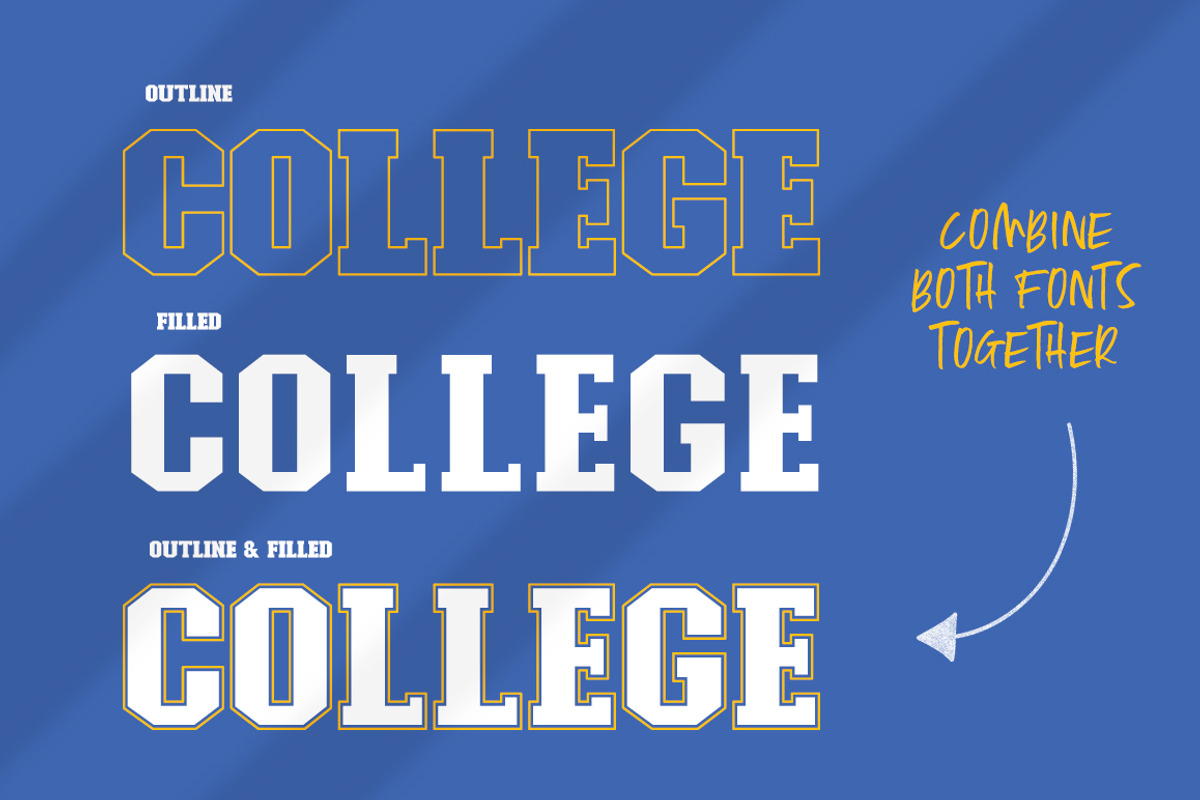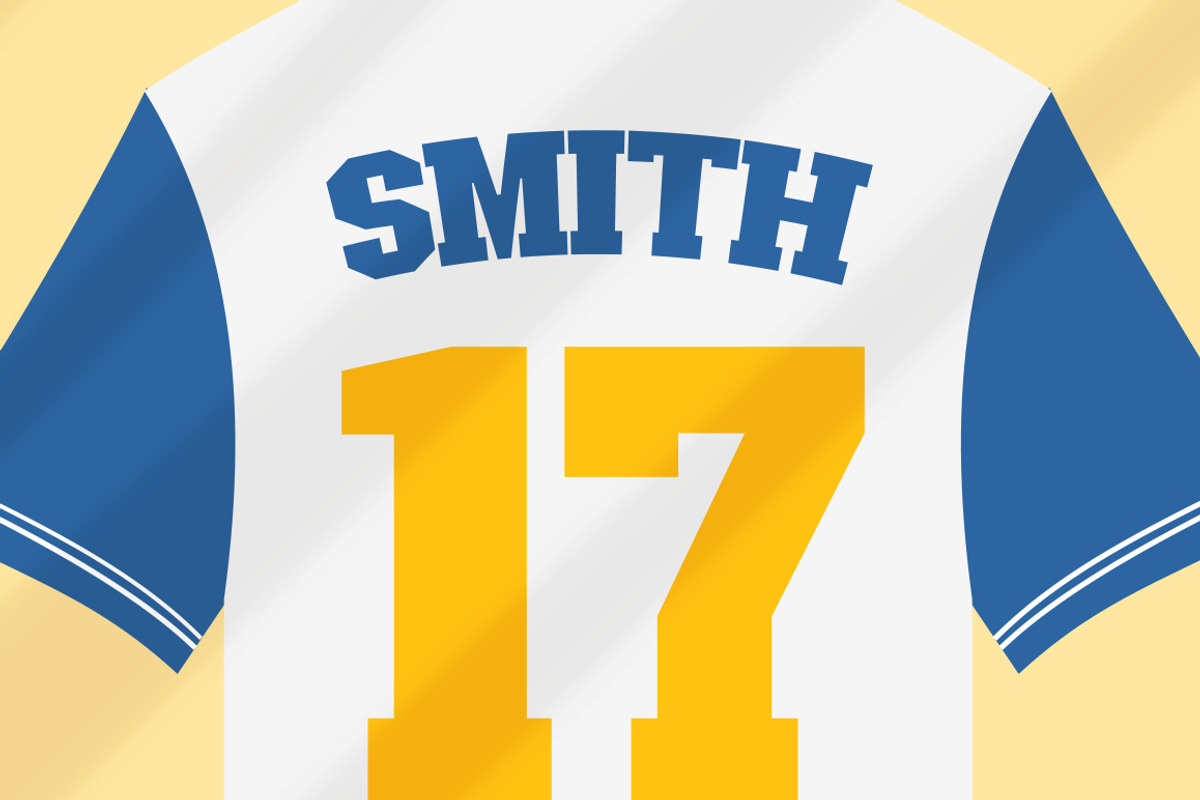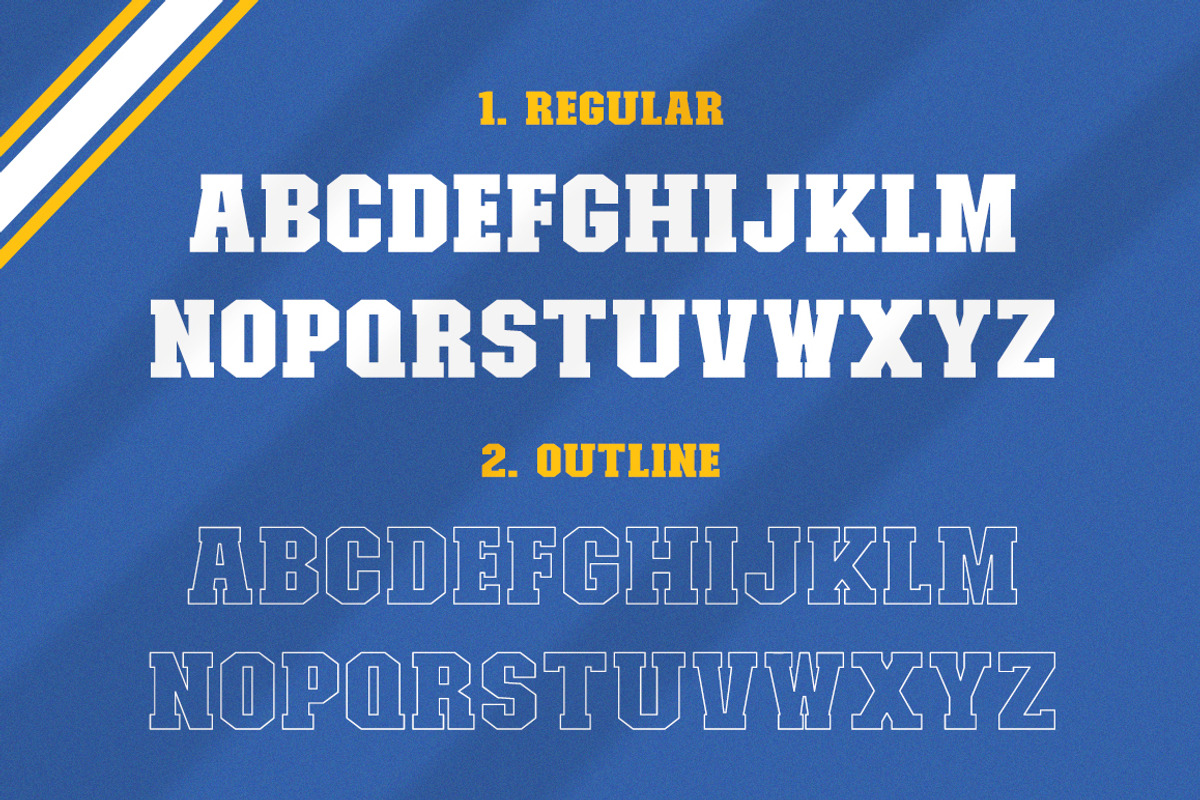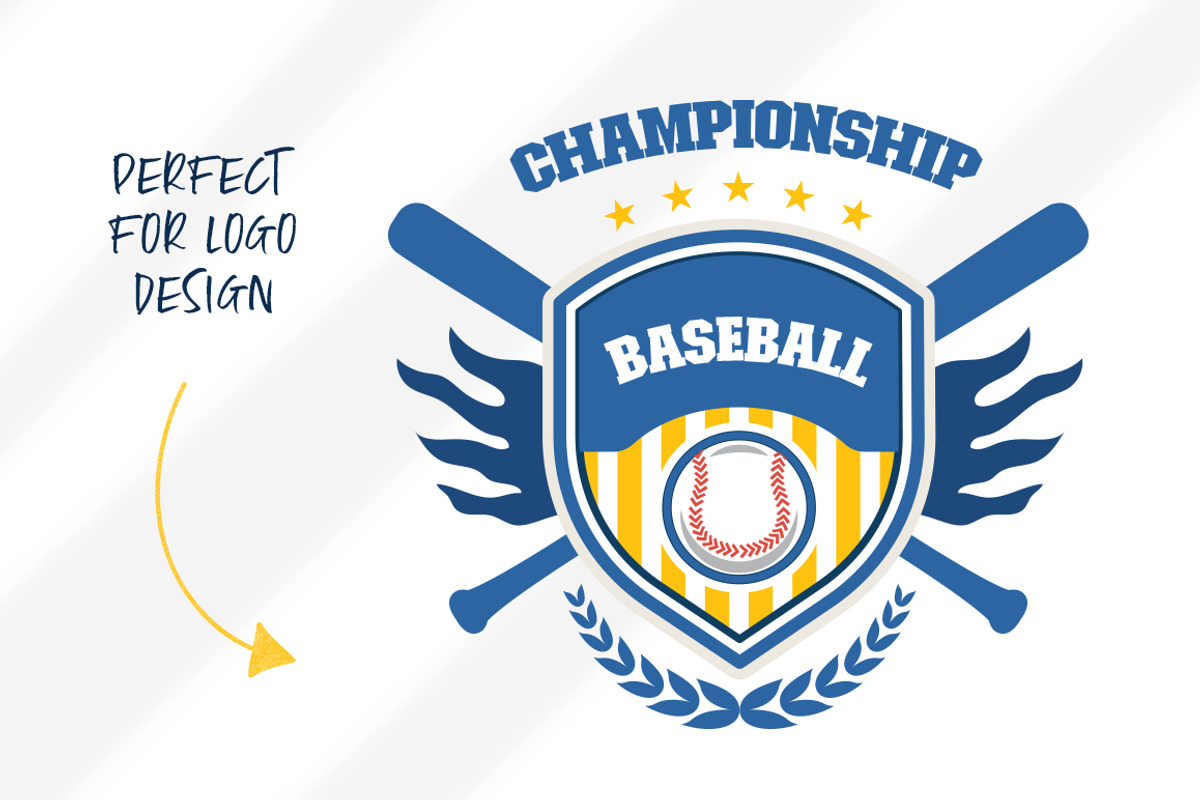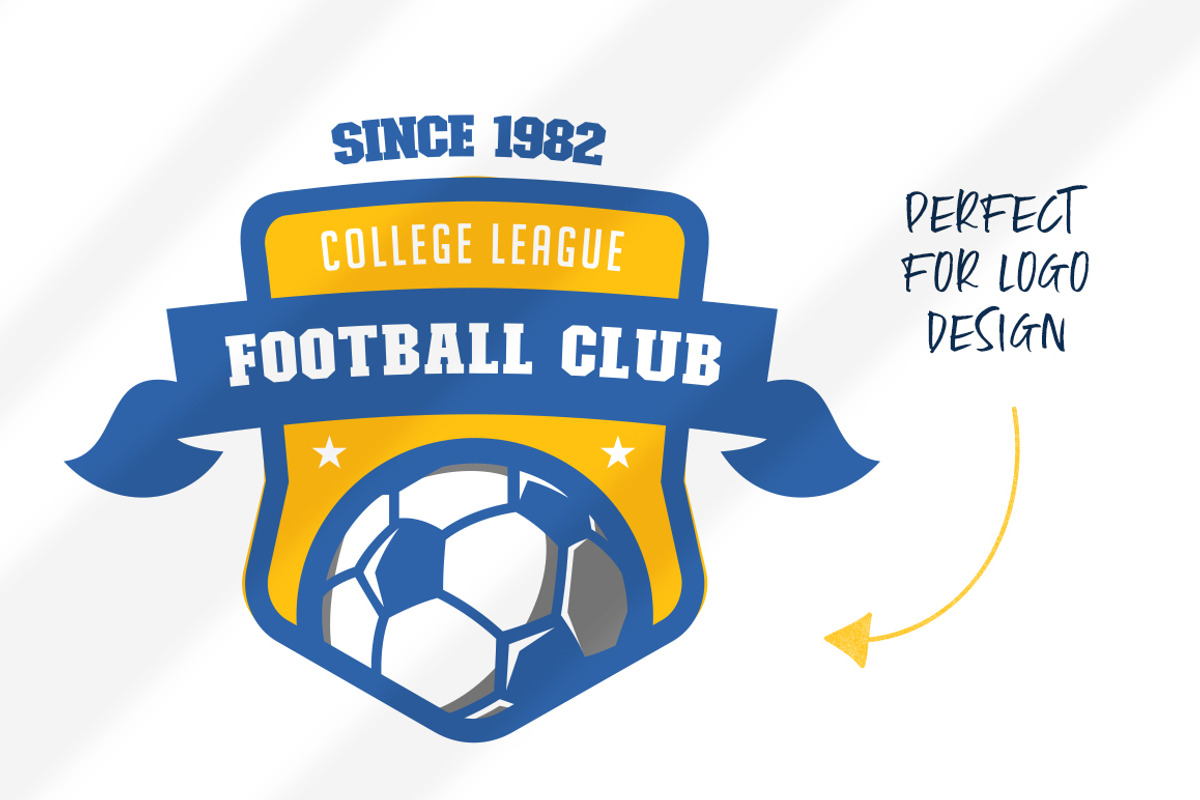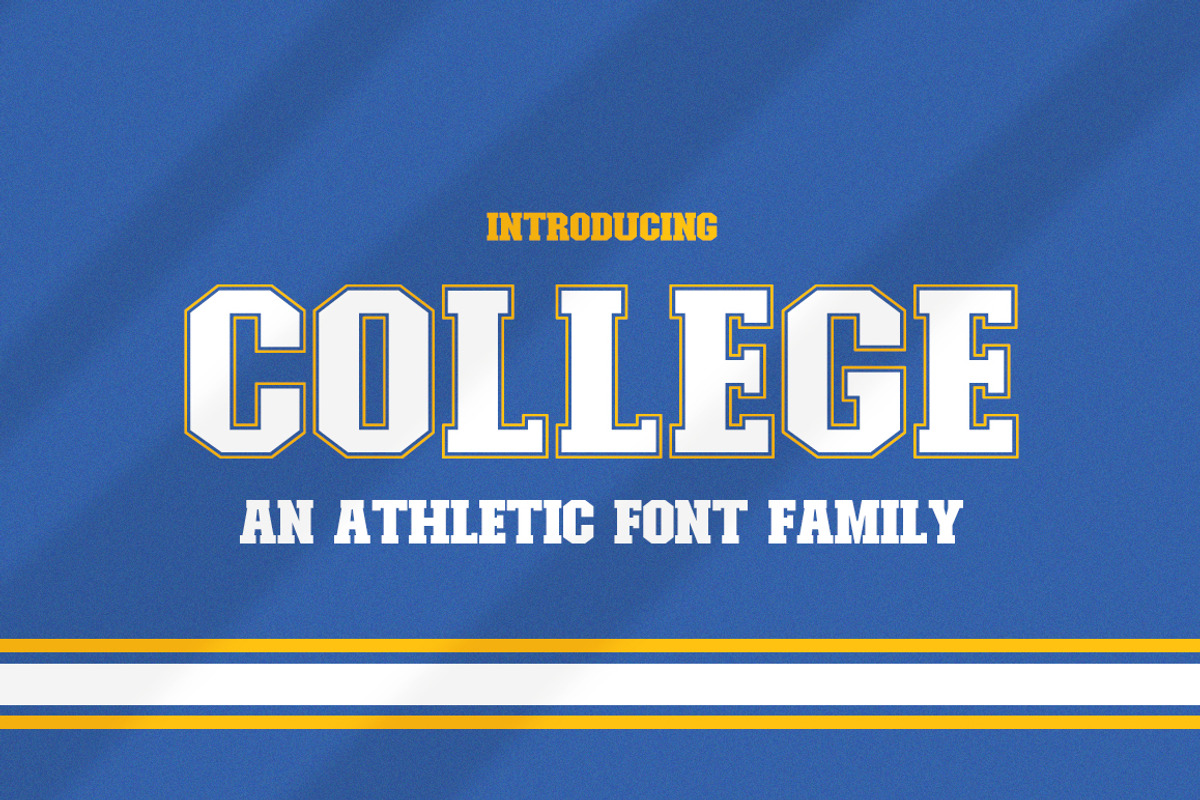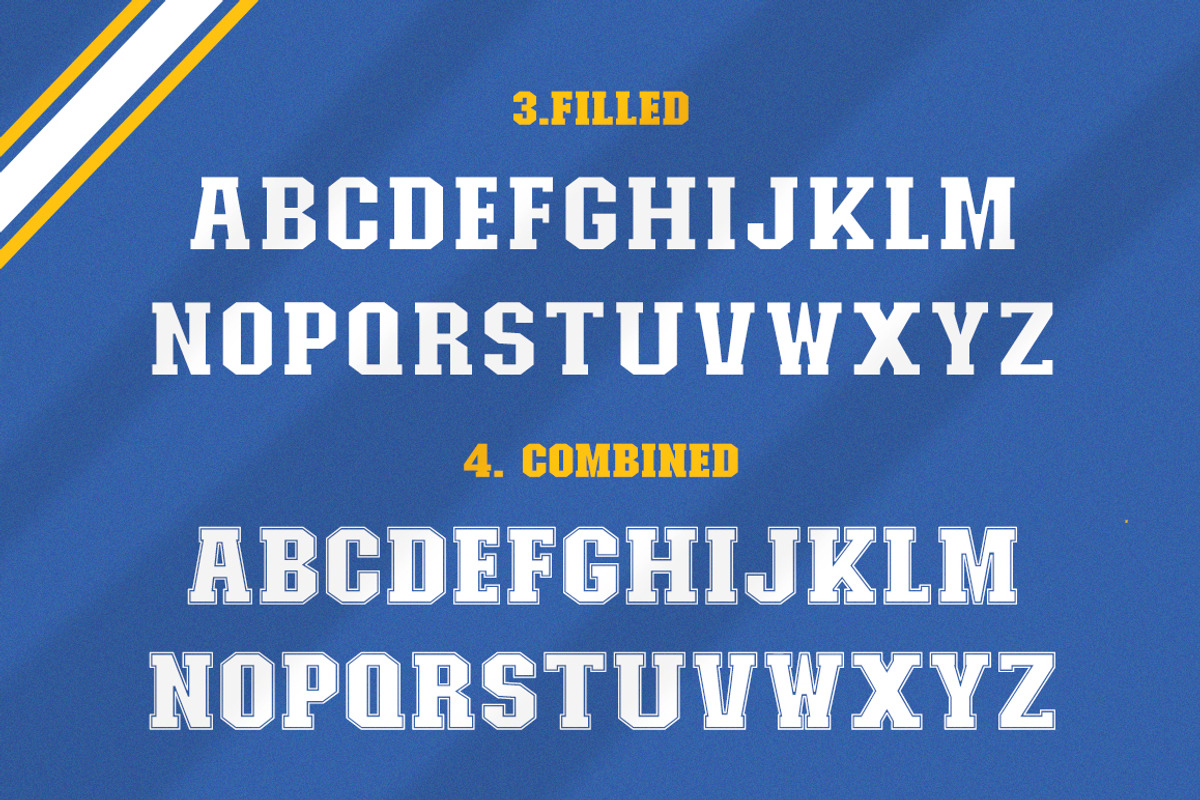
College Font Family
College is a family of fonts that like to hang out together! Combine them how you like and color them as you will. Give your designs some good old college cheer and have fun!